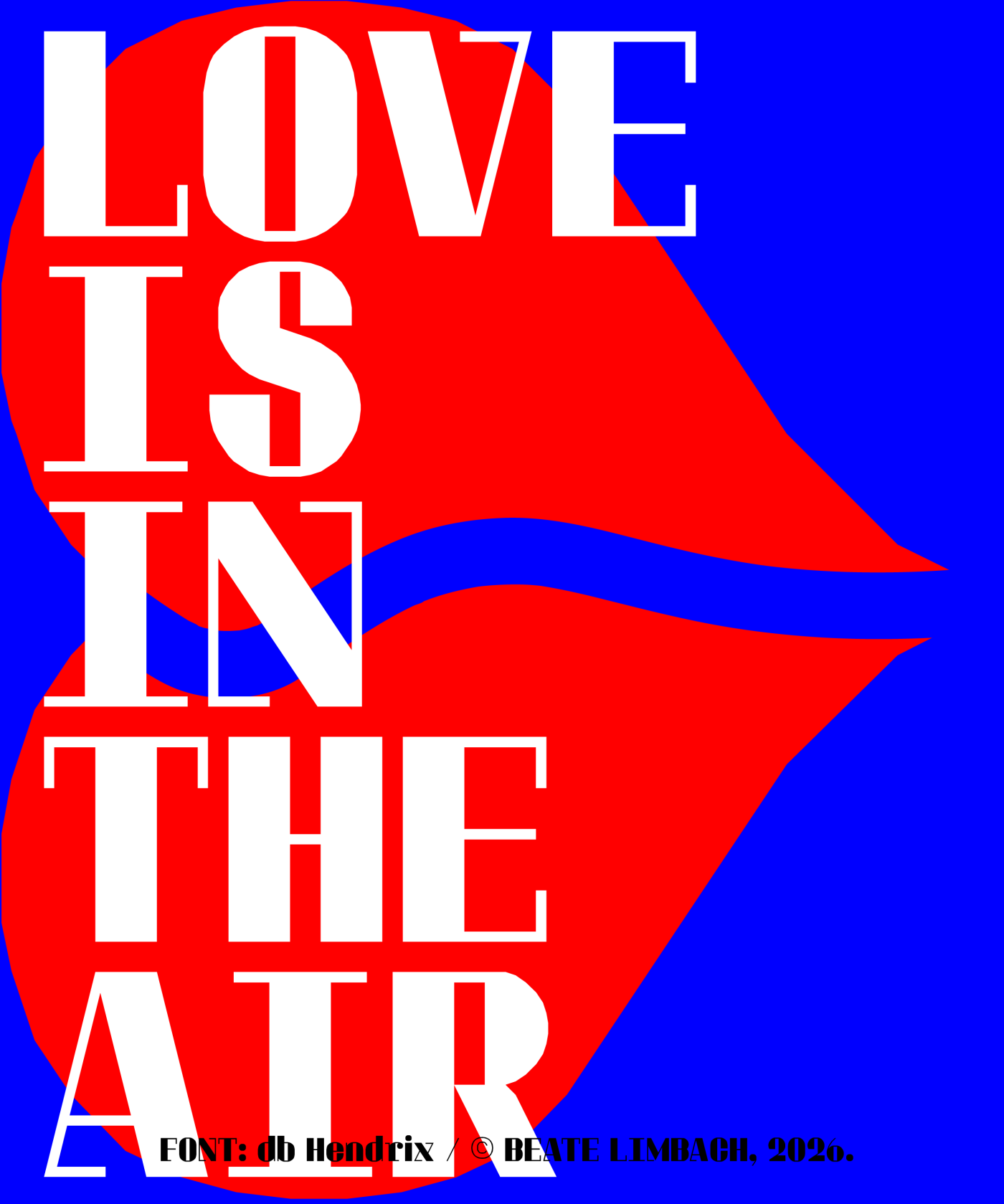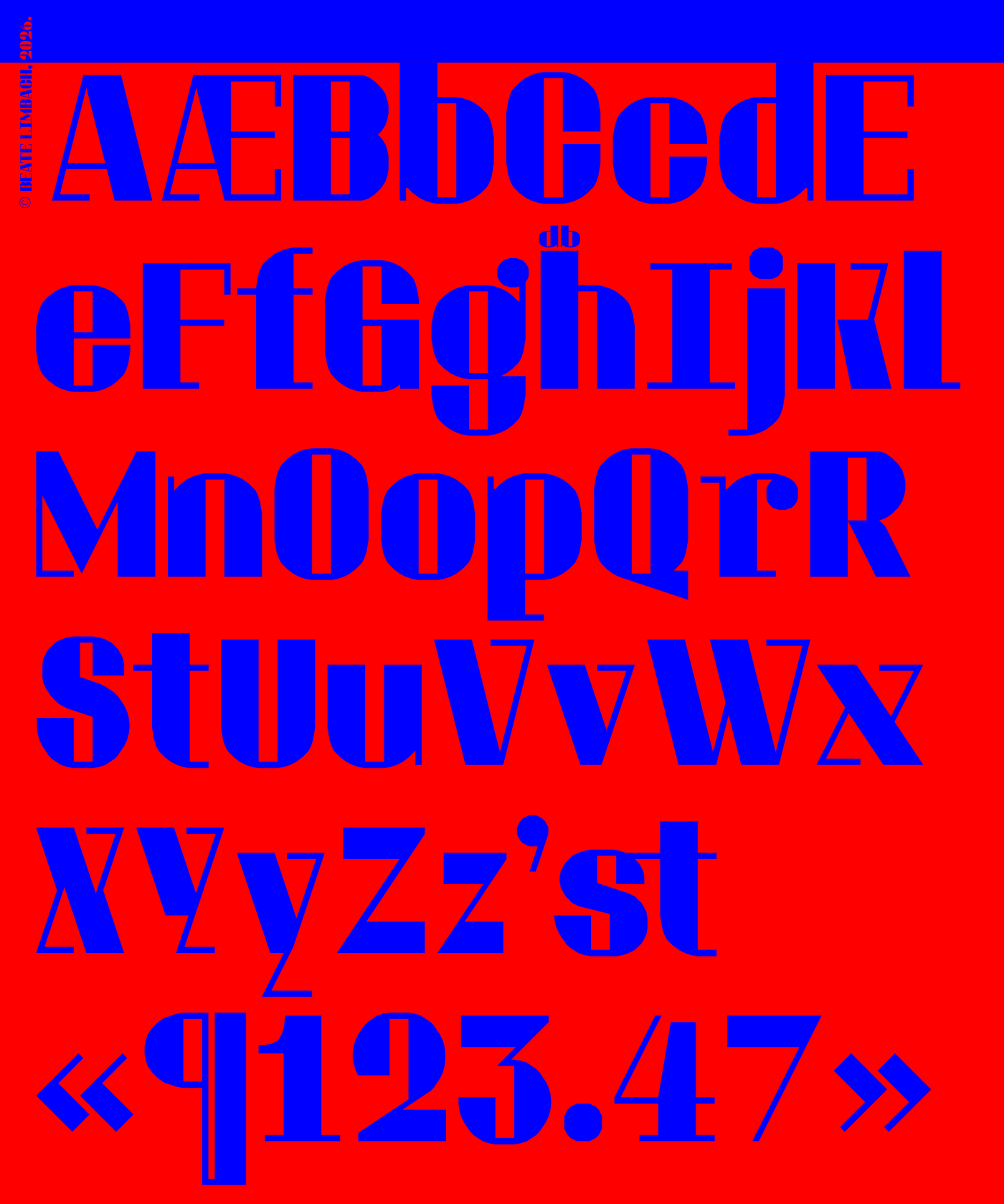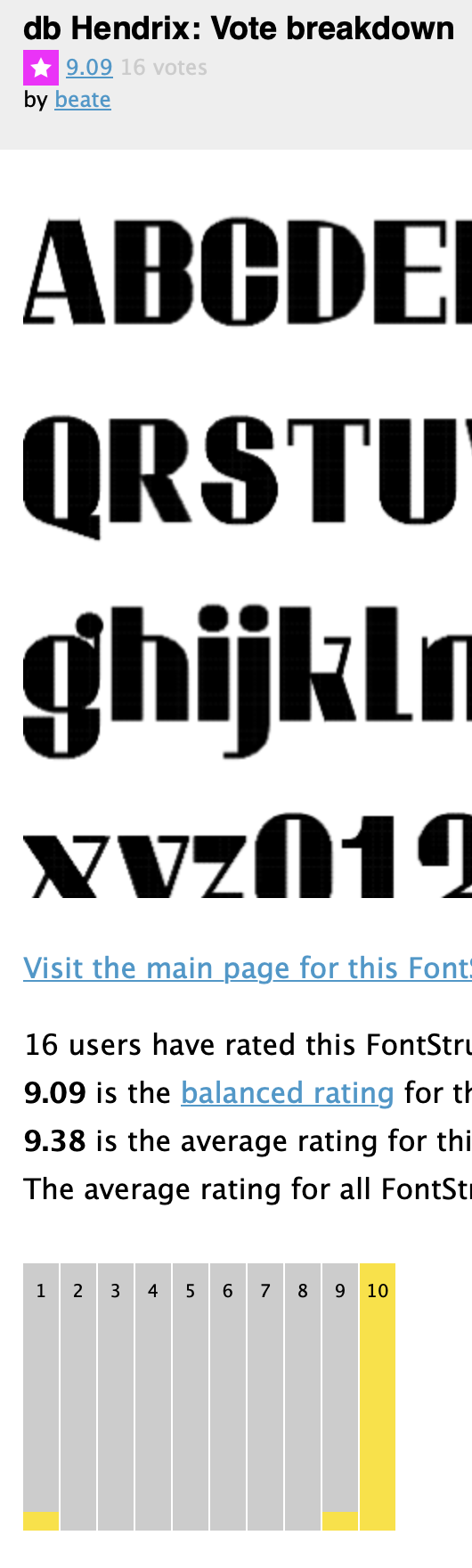
High contrast geometric demi-sans(?). I like the touches on the N, V, W, X, and Y. Great work. 10/10
@Frodo, Well, I hesitated too. Hendrix is probably a mix of Sans and Slab. Thanks for stopping by.
Always lovely to see your fonstructions~ 10/10
This is very art-deco to me, I dig this style a lot!
@beate: Troll votes are like a badge of honour. They never troll mediocre fonts. Don't let them steal your creative spirit.
I'm with @Frodo7, but I understand your sadness about the 1s. Btw, the serifs are nice.